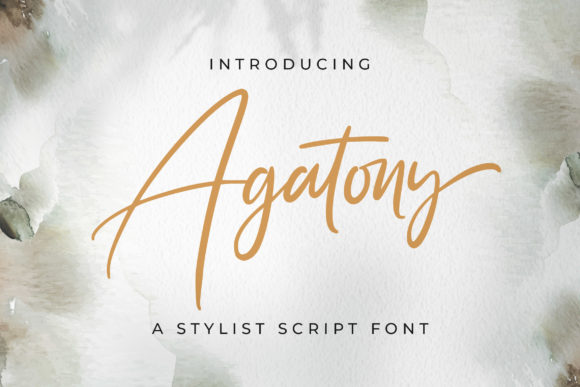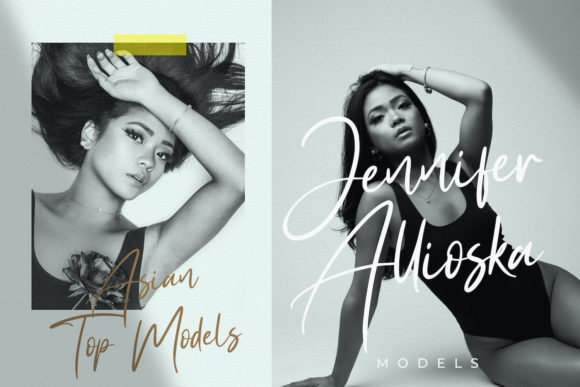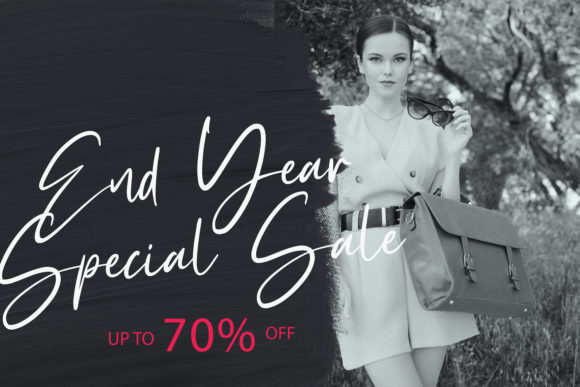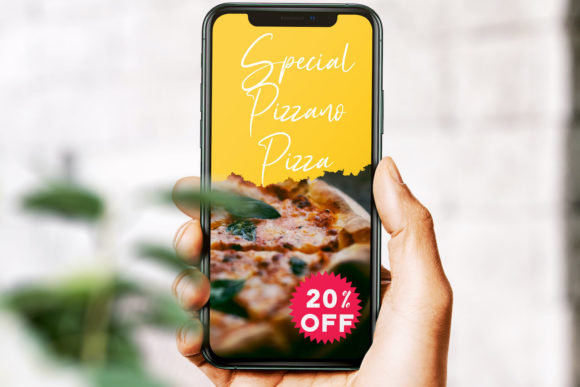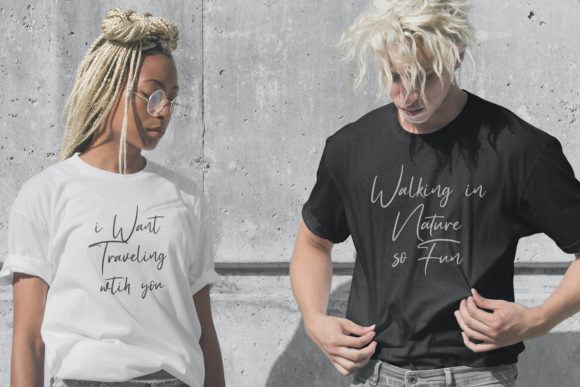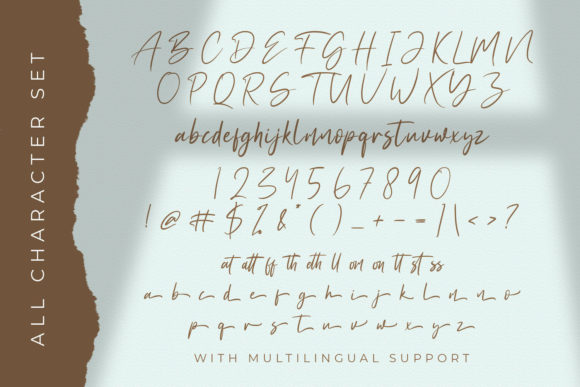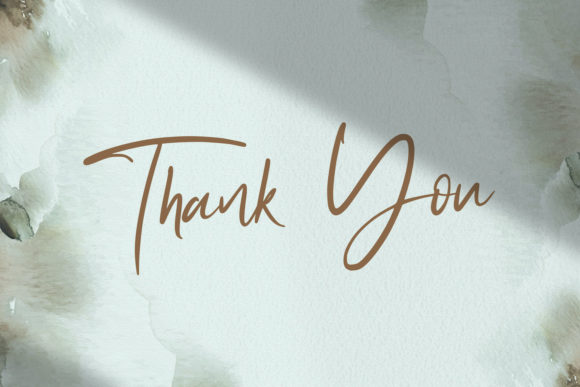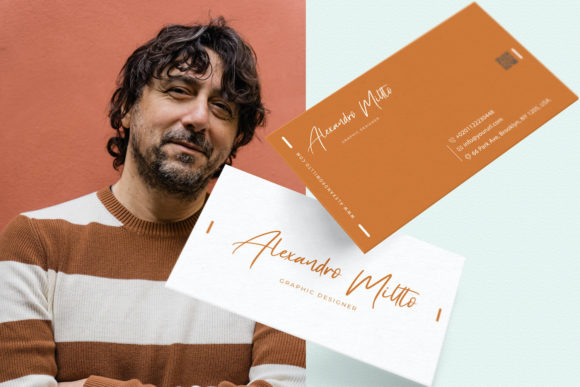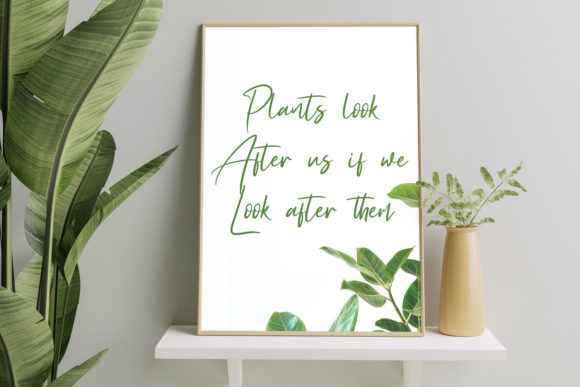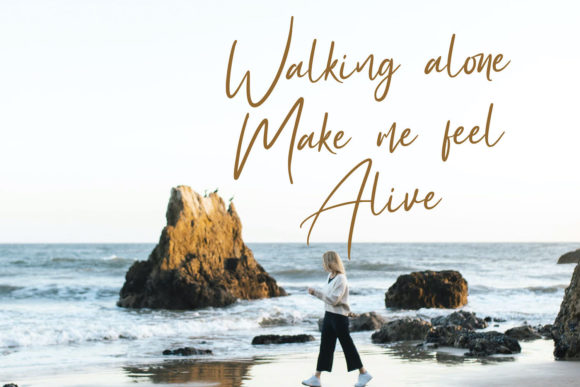
Agatony Font
About Agatony Font
Agatony is a stunning and refined script font that exudes sophistication and elegance. With its stylish alternates and ligatures, this font is the perfect choice for adding a touch of luxury and class to any project.
The graceful and flowing strokes of Agatony’s letters create a harmonious and balanced appearance. Each character is meticulously designed to showcase its beauty and intricacy. The elegant curves and swashes add a touch of flair and creativity, making Agatony stand out from the crowd.
With its stylish alternates and ligatures, Agatony offers endless possibilities for customization. You can experiment with different letterforms and combinations to create unique and personalized designs. The font’s PUA encoding allows easy access to all the glyphs and swashes, making it convenient to use and explore its full potential.
Agatony is versatile and suitable for various projects. Whether you’re designing logos, branding materials, invitations, stationery, or social media posts, Agatony will elevate your work and make it memorable. Its refined and fashionable look adds a touch of sophistication to any design.
The legibility of Agatony ensures that your message is conveyed clearly and effectively. It is designed to be easily readable, even at smaller sizes, making it versatile for both print and digital applications. The font’s elegant and stylish appearance captures attention and leaves a lasting impression.
In summary, Agatony is a fashionable and refined script font that radiates sophistication and elegance. Its stylish alternates and ligatures offer versatility and customization options, allowing you to create unique and captivating designs. With its PUA encoding, accessing the full range of glyphs and swashes is a breeze. Add a touch of luxury to your projects with Agatony and watch them come to life with elegance and charm.